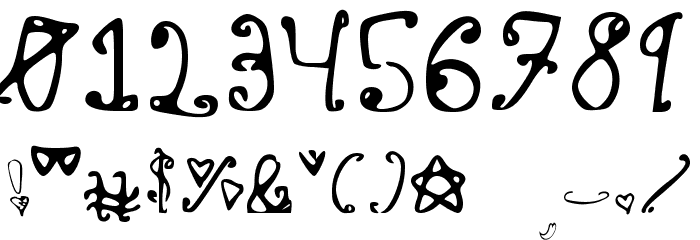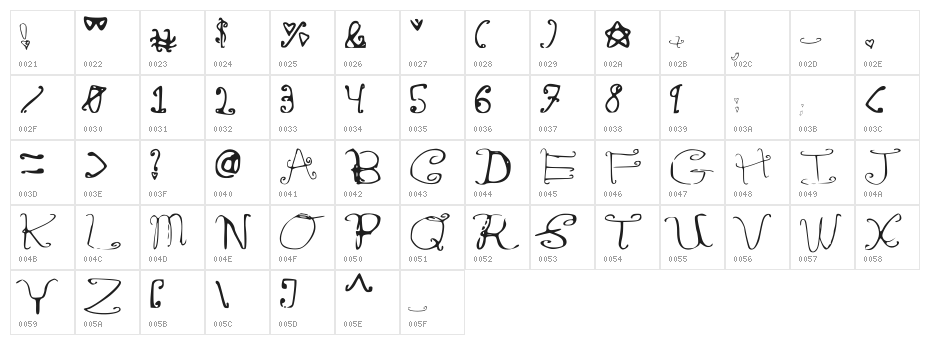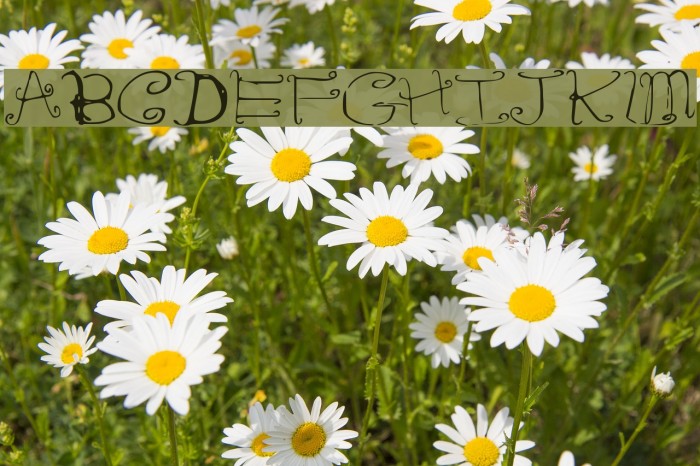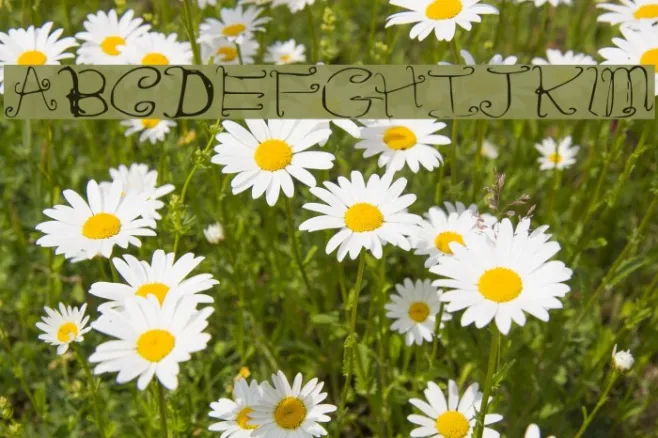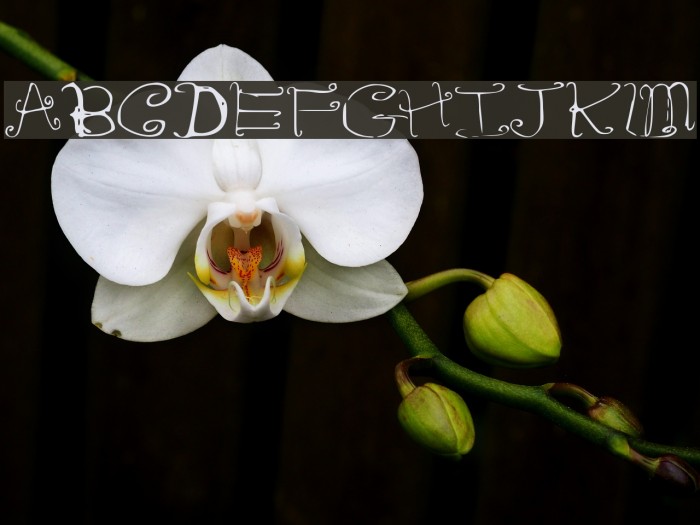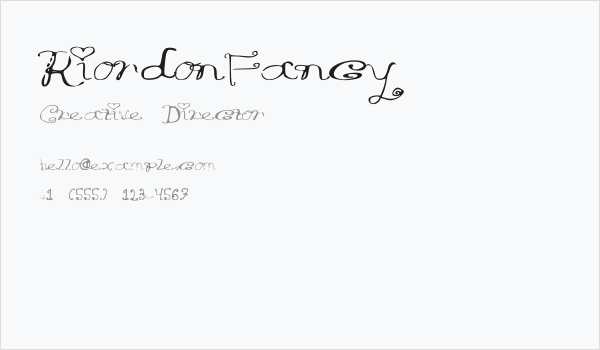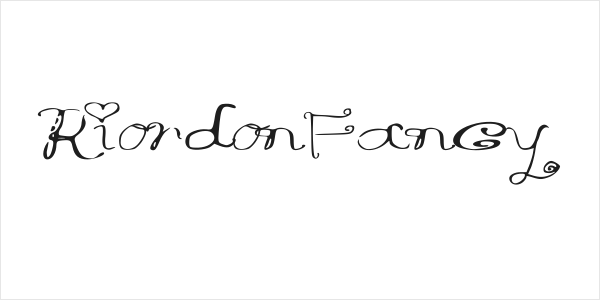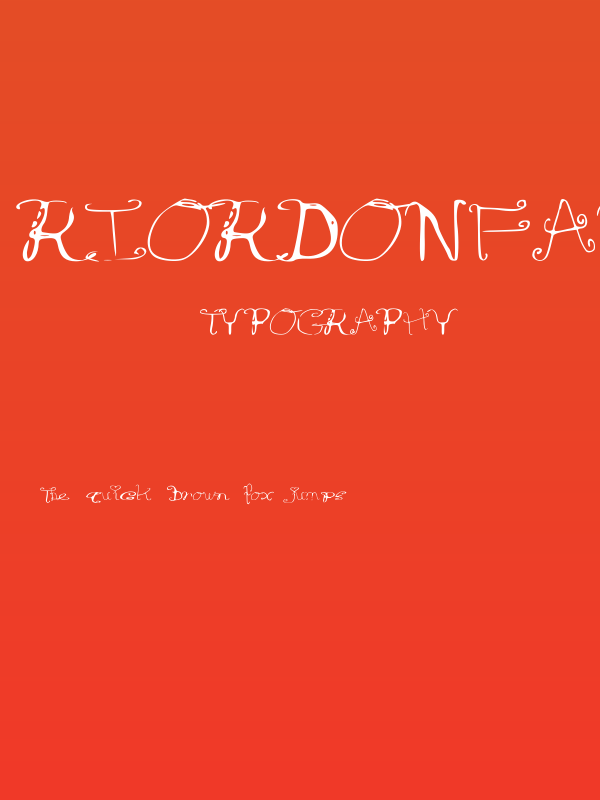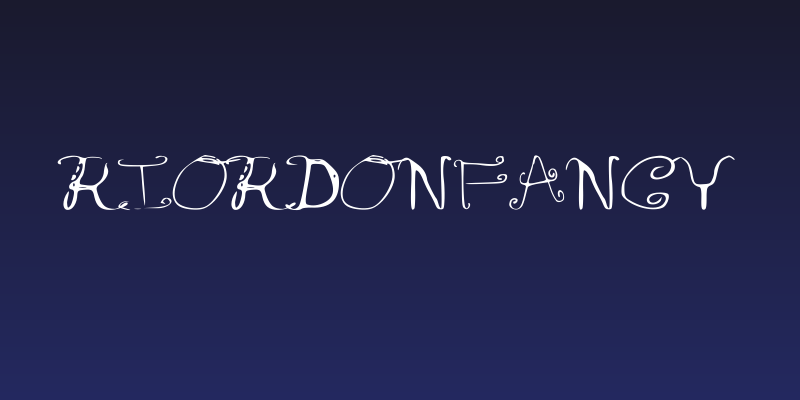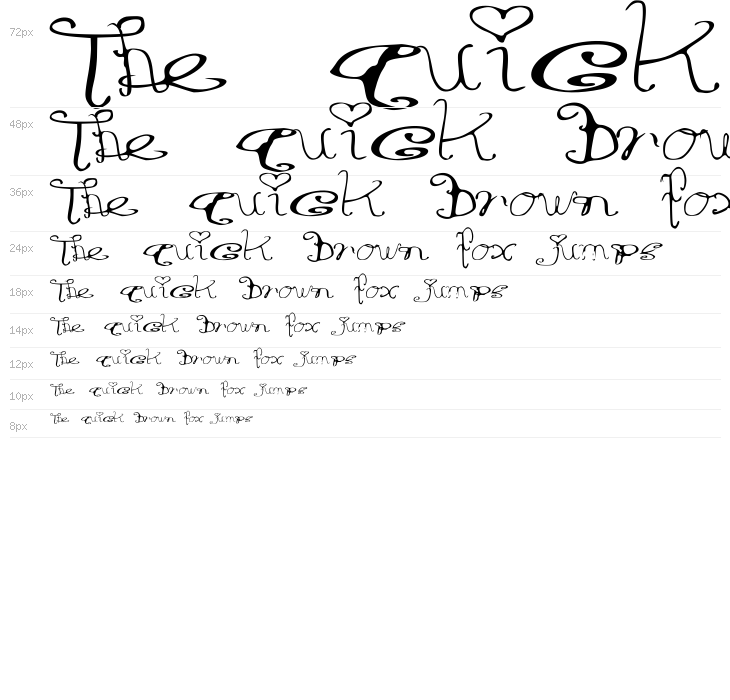
RiordonFancy Font
RiordonFancy Description
This font features an eclectic and whimsical design, characterized by its playful and decorative elements. Each letter is adorned with unique flourishes and curls, giving it a hand-drawn, artistic feel. The uppercase letters are bold and expressive, while the lowercase letters maintain a consistent style with intricate details. Numbers and special characters follow the same decorative theme, adding a touch of creativity and flair. The overall appearance is both charming and distinctive, making it suitable for projects that require a touch of personality and artistic expression.
| Proposed Projects | Ideal for greeting cards, invitations, children's books, and creative branding projects. |